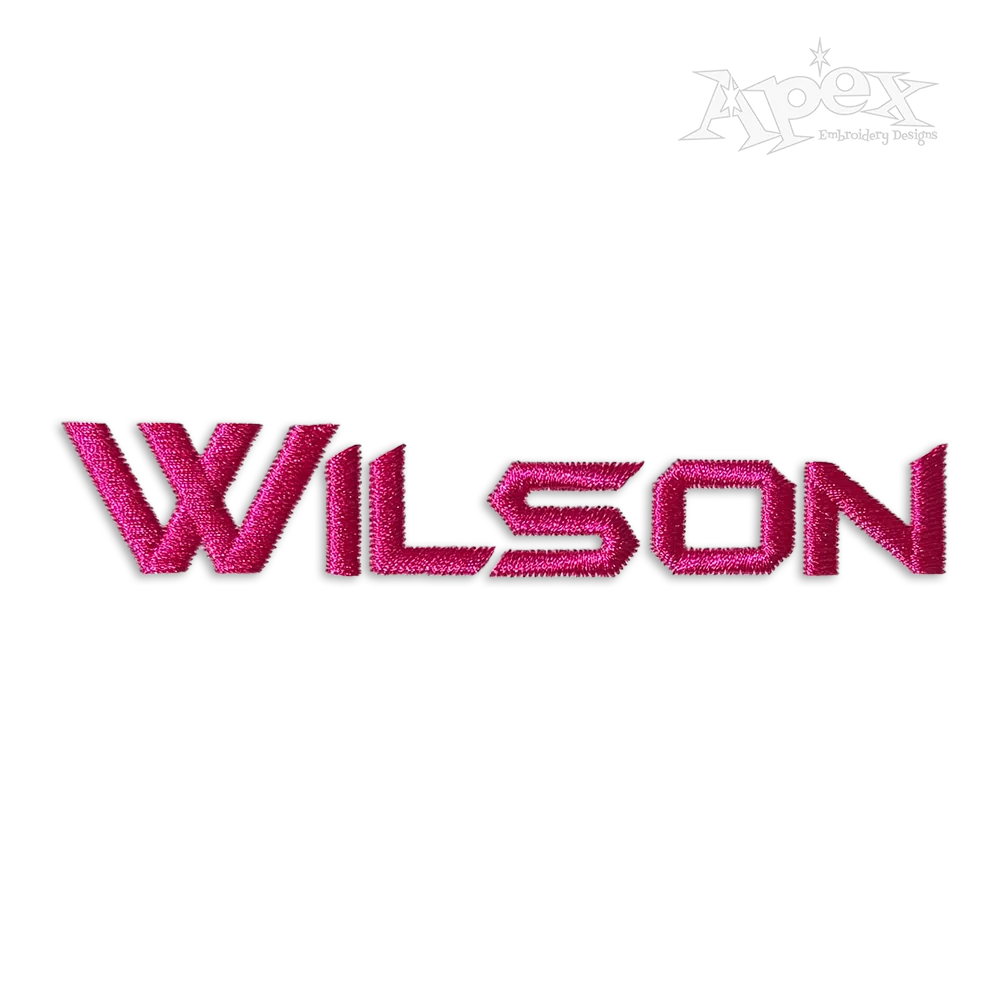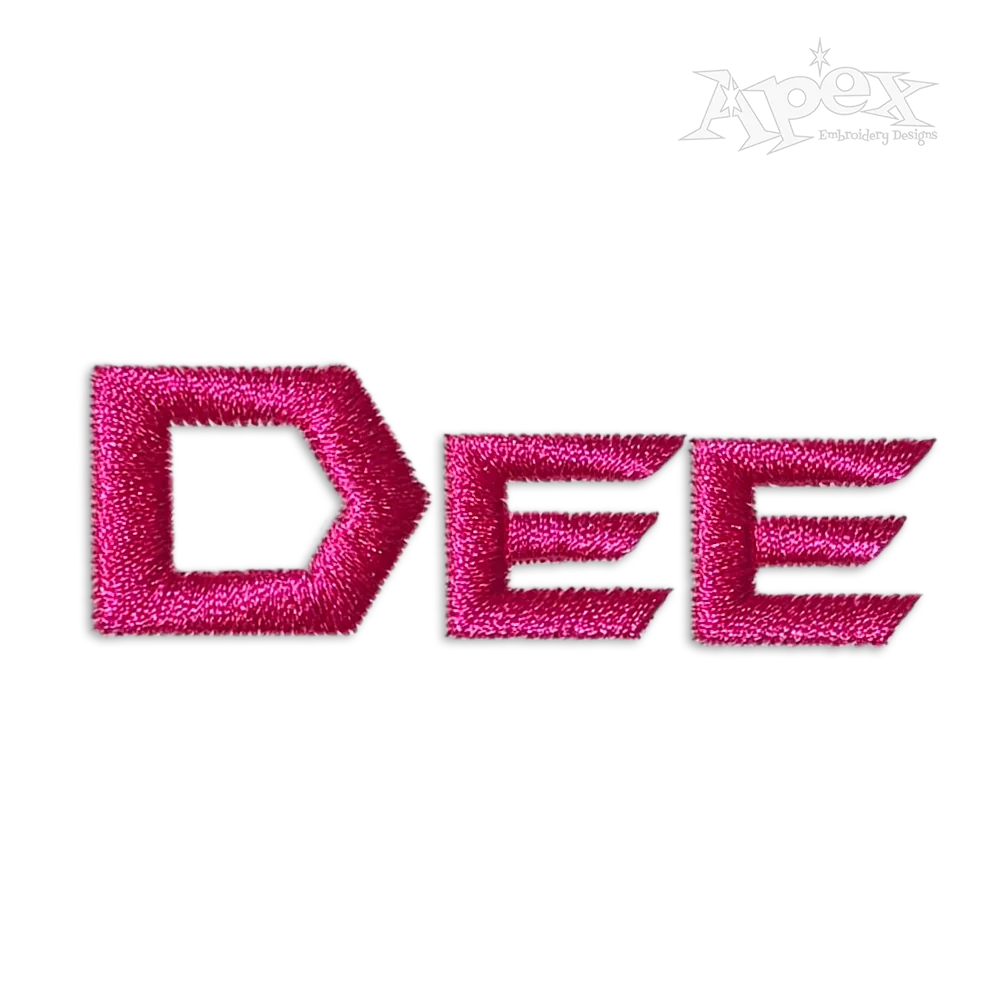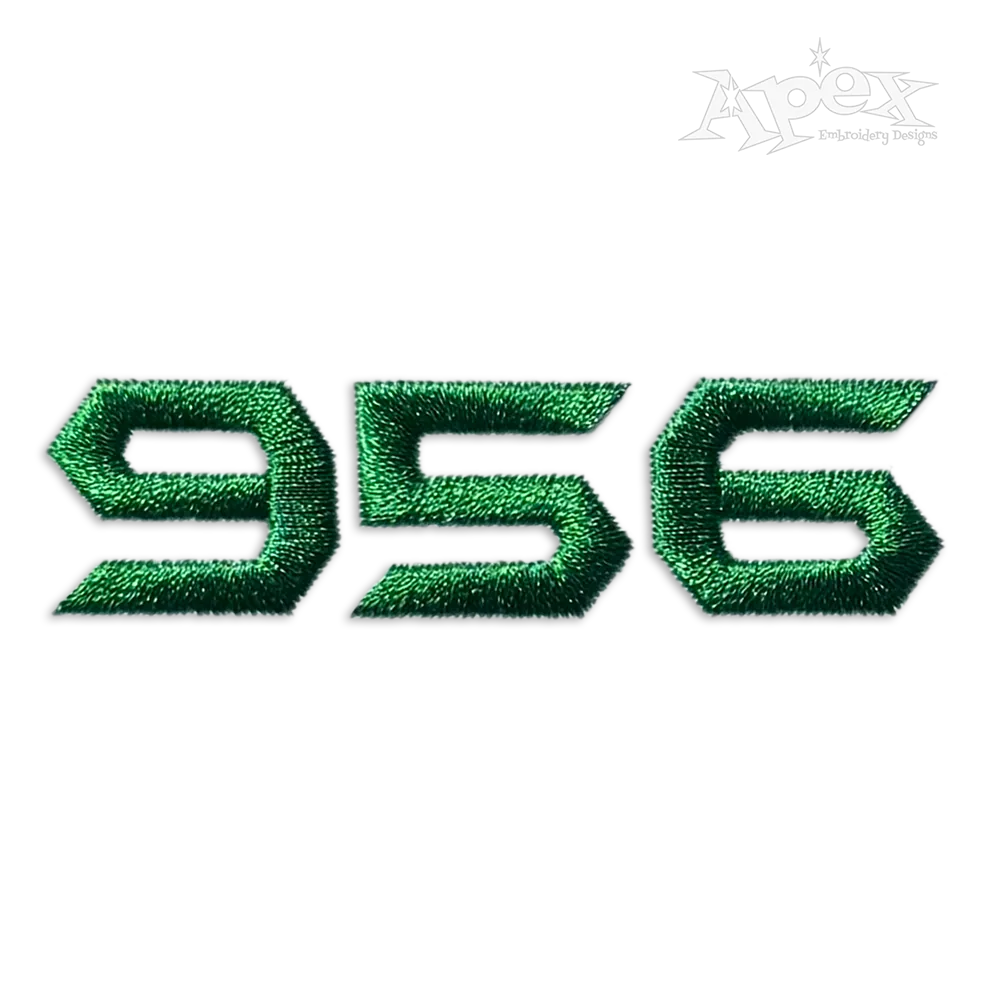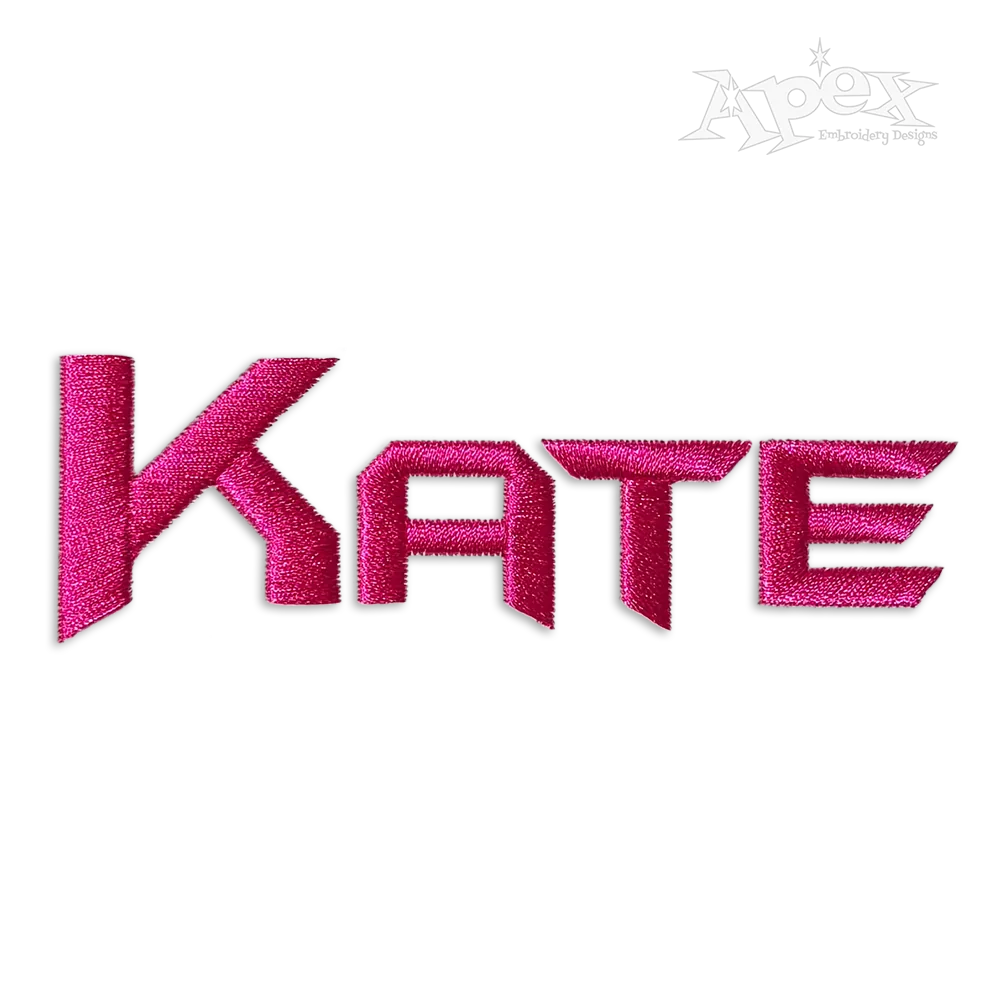
Bat Forever Embroidery Font
Stepping into the workshop with the atmospheric spirit of midnight skylines and dark cinematic lore, the Bat Forever Embroidery Font brings commanding, theatrical drama straight to your hoop. Inspired by the chiseled, high-octane block typography of mid-nineties superhero cinema, this satin stitch alphabet delivers an unmistakable silhouette where every angle cuts cleanly through fabric. Digitized to balance heavyweight punch with smooth, uninterrupted thread paths, each glyph stands like an architectural monolith, ready to transform everyday textiles into bold, heroic statements of custom monogramming.
Meticulously digitized in pure, lustrous satin stitch, this collection delivers pristine legibility across four graduated scales to suit projects of every proportion:
Bat Forever Embroidery Font Craft & Letterform Details
What makes the Bat Forever Embroidery Font genuinely captivating is its muscular, angular geometry. Rather than relying on simple rectangular columns, each letterform features subtly flared stems, sharp beveled turns, and deliberate asymmetrical cuts that evoke speed, power, and high-altitude vigilance. We digitized this alphabet with meticulous underlay sequencing tailored specifically for dense satin stitching, anchoring the fabric firmly before laying down glossy top stitches that catch the studio light like carved obsidian.
Special care was dedicated to the internal corners and intersections. By feathering stitch directions at sharp apexes, we eliminated unwanted bulk and knotting, ensuring every edge remains crisp and razor-sharp whether stitched on heavy cotton canvas, textured twill, or smooth performance knits. The resulting thread sheen transforms ordinary embroidery thread into liquid metallic armor on your finished piece.